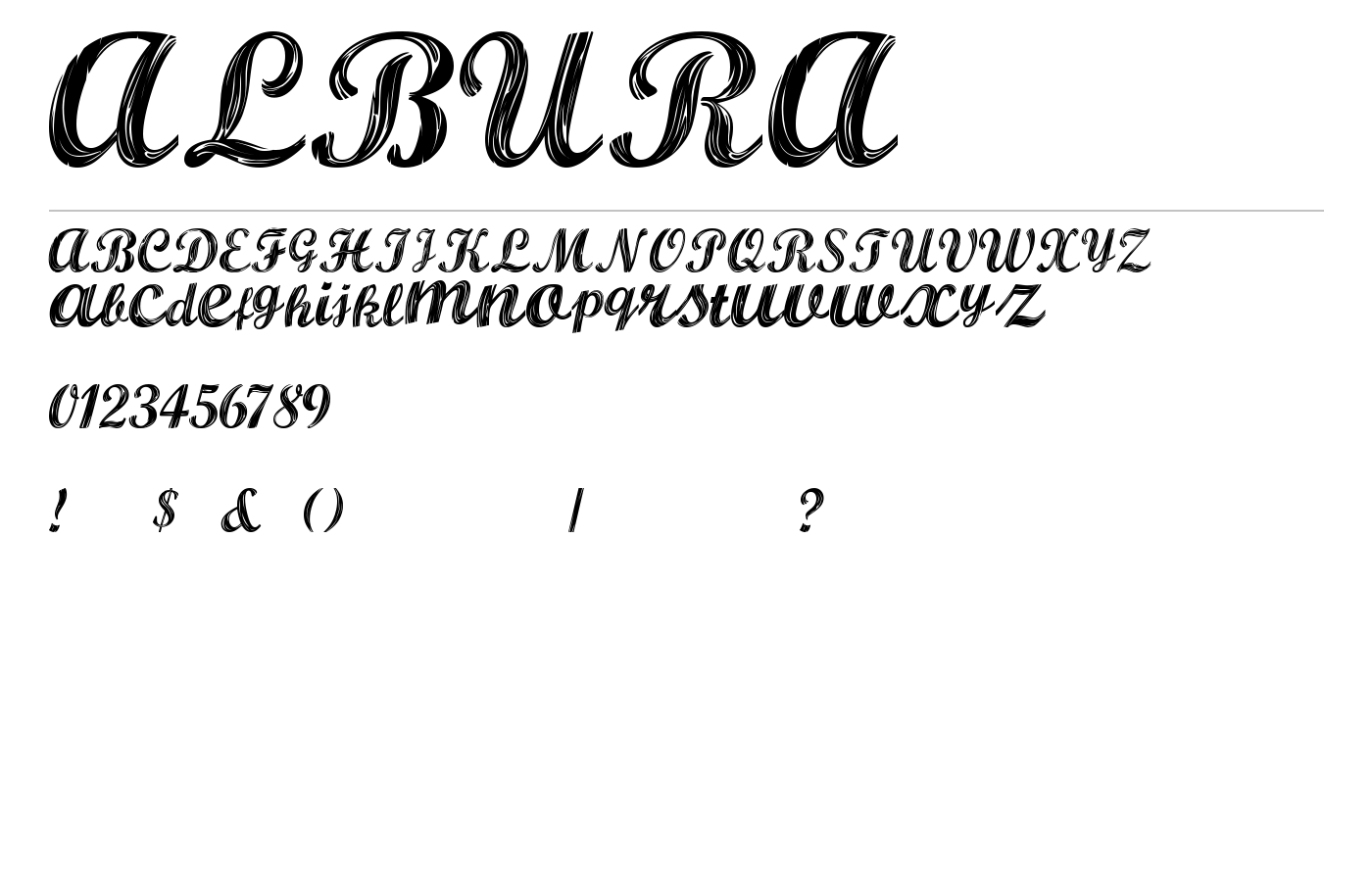
Albura is a decorative script font with a bold, brushstroke texture that gives it a lively, artistic flair. Its high contrast and elegant swashes make it ideal for eye-catching headlines, logos, and branding that needs a touch of vintage charm and sophistication. This font works beautifully in fashion, invitations, and creative projects that seek a distinctive and stylish personality.
ALBURA Font
About ALBURA Font